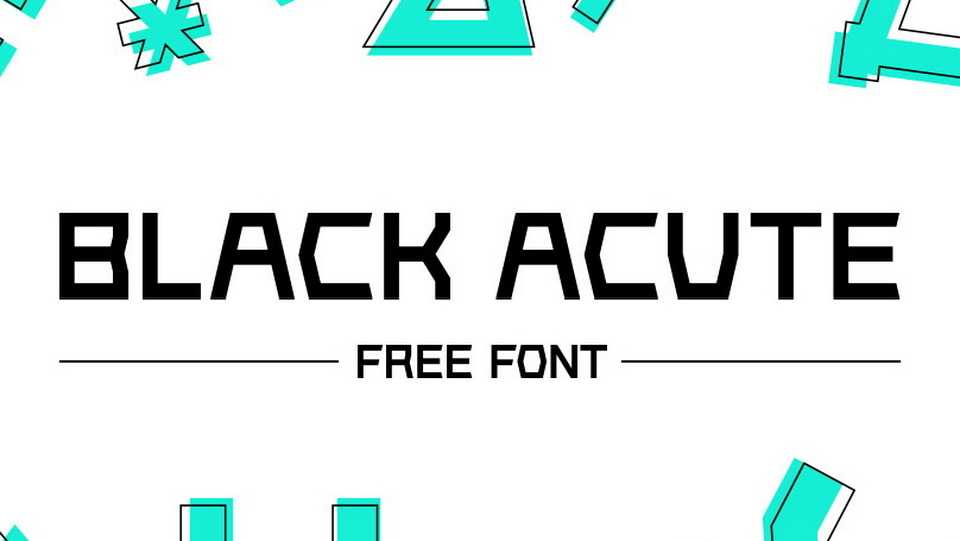
Download Black Acute font, an all caps display typeface based on rectangular shapes. Black Acute was designed for logos, posters, banners, headlines, not solid text.